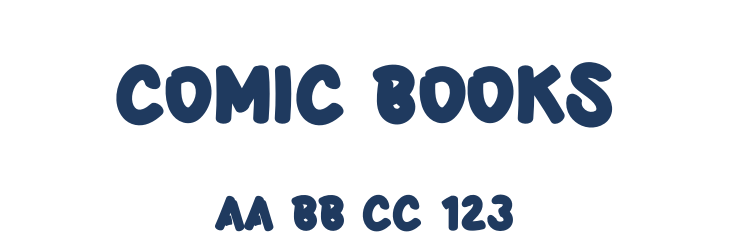
Top Comic Font Dafont
Comic Book Dafont Archive of freely downloadable fonts. browse by alphabetical listing, by style, by author or by popularity. In conclusion, choosing the right font for your webtoon or manga is essential for creating a unique and professional look. with this list of 12 best fonts for webtoons and manga, you can find the perfect font for your comic and take it to the next level.
Top Comic Font Dafont Found 891 free fonts. Download best free comic fonts. these comic fonts are from ancient era but they can add quality touch to any design project. Top comic font is a bold and dynamic typeface designed by måns grebäck, perfect for adding energy and personality to your projects. with its graffiti inspired style and playful cartoon aesthetic, this font is ideal for comic book titles, posters, logos, and creative designs that demand attention. Download top comic font for windows and mac. top comic font was designed by måns grebäck and has been downloaded 39,688 times.
Top Comic Font Dafont Top comic font is a bold and dynamic typeface designed by måns grebäck, perfect for adding energy and personality to your projects. with its graffiti inspired style and playful cartoon aesthetic, this font is ideal for comic book titles, posters, logos, and creative designs that demand attention. Download top comic font for windows and mac. top comic font was designed by måns grebäck and has been downloaded 39,688 times. Comic book font was one of my first scan to build fonts. unfortunately, i can’t recall which comic book inspired its creation; its purpose is to emulate the font used in typical comic books; it features a full alphabet, expanded punctuation, and euro as well as bold italic and bold italic variants. Looking for the best font for comics? check out these 15 picks that add punch, personality, and style to your characters and scenes. Are you searching for all of the best dafont fonts? we've got you covered! check out our roundup here!. Fun, often whacky cartoon style fonts, ideal for creating comics.
Comic Hero Font Dafont Free Comic book font was one of my first scan to build fonts. unfortunately, i can’t recall which comic book inspired its creation; its purpose is to emulate the font used in typical comic books; it features a full alphabet, expanded punctuation, and euro as well as bold italic and bold italic variants. Looking for the best font for comics? check out these 15 picks that add punch, personality, and style to your characters and scenes. Are you searching for all of the best dafont fonts? we've got you covered! check out our roundup here!. Fun, often whacky cartoon style fonts, ideal for creating comics.
Comic Book Font Dafont Are you searching for all of the best dafont fonts? we've got you covered! check out our roundup here!. Fun, often whacky cartoon style fonts, ideal for creating comics.